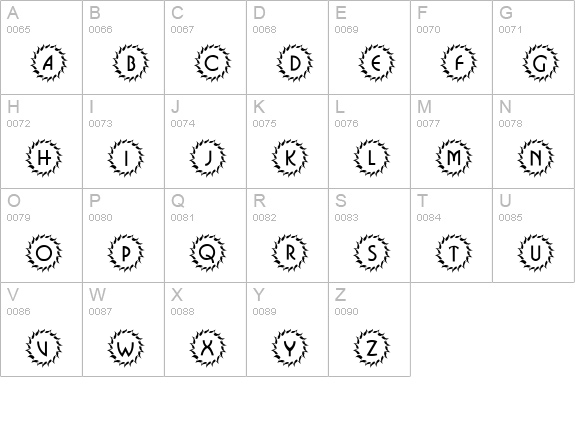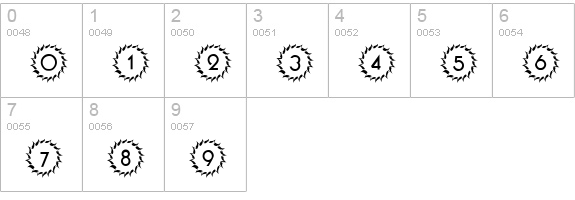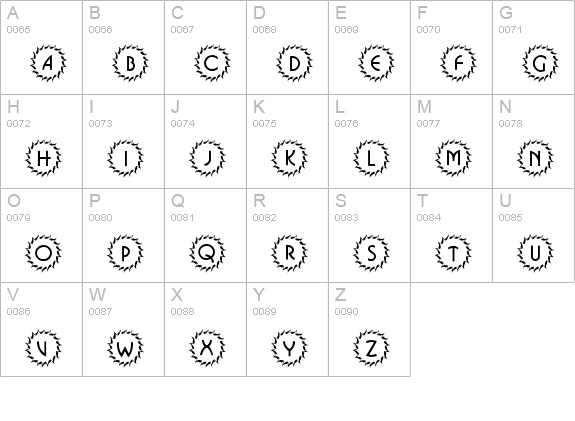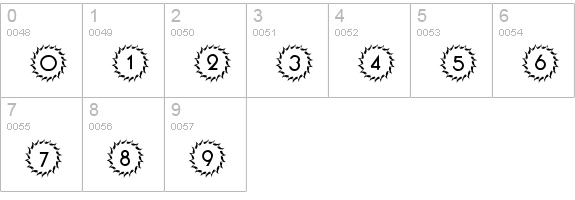
Introducing 101! Deco Type 1 font, a stunning display typeface that exudes elegance and sophistication. This font features intricate geometric shapes and stylish Art Deco-inspired details, making it perfect for luxury branding, editorial design, and high-end projects. With its bold presence and eye-catching design, 101! Deco Type 1 font is sure to make a statement in any creative endeavor. The best part? This exquisite font is available for free download at FontsMarket.com. Embrace the timeless charm and modern flair of 101! Deco Type 1 font in your next design project and elevate your visuals to a whole new level. Let your creativity shine with this versatile and visually striking typeface that is bound to captivate and inspire. Download it now and add a touch of luxury to your designs effortlessly.